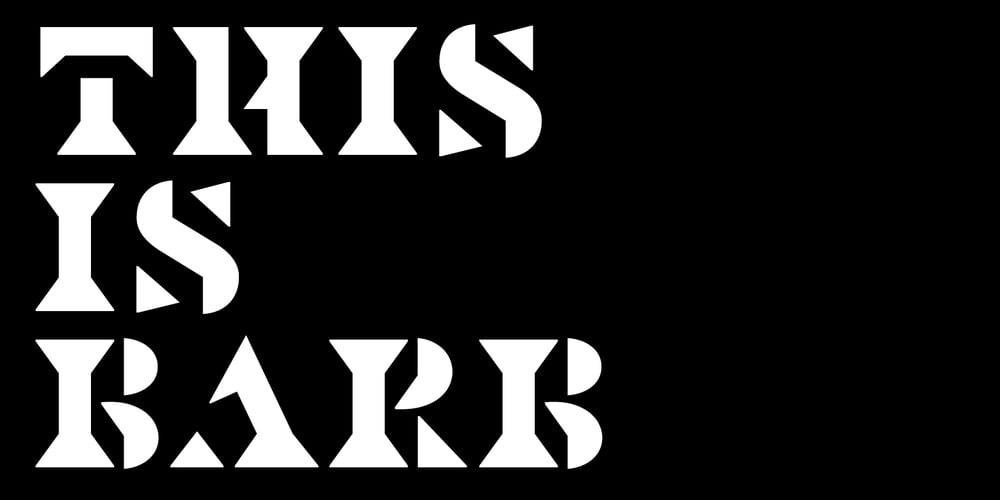
Barb Font Family was designed by Gareth Hague and published by Alias. Barb contains 2 styles and family package options. Barb isn’t made from adding gaps to an existing design, but by constructing letters from separate graphic elements. This separation of the letters into components parts allows interesting and unusual connecting devices. This is particularly notable in the scythe-shape of the curved characters to triangle serifs, and the pointed connector-shapes in the A, H and N. The B, P and R combine the two. In this way letters are differentiated in surprising and expressive ways, and an even colour is achieved between letters. As with other stencil types there is some abstraction, but it isn’t the intention with Barb of deconstructing letters, more having fun with drawing, and constructing, but in a different way.